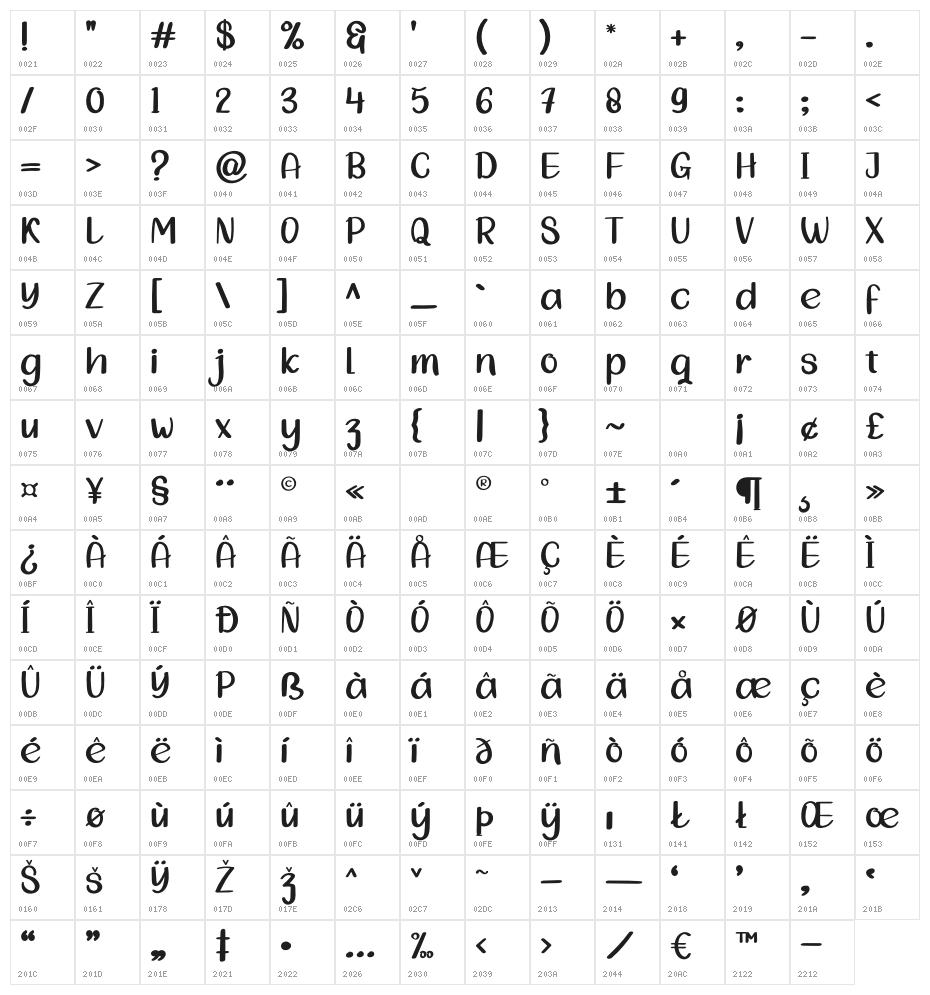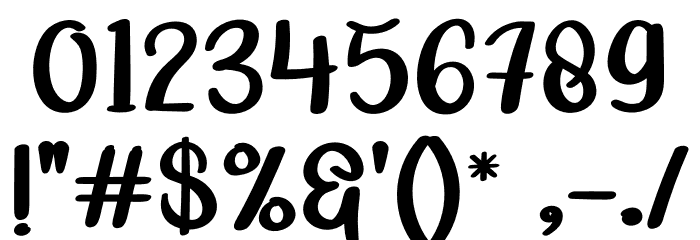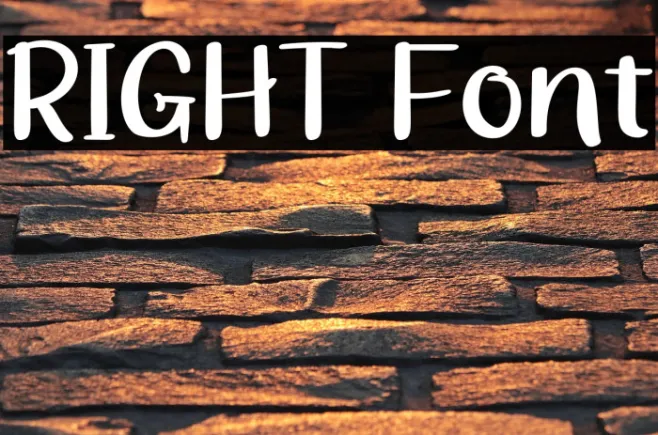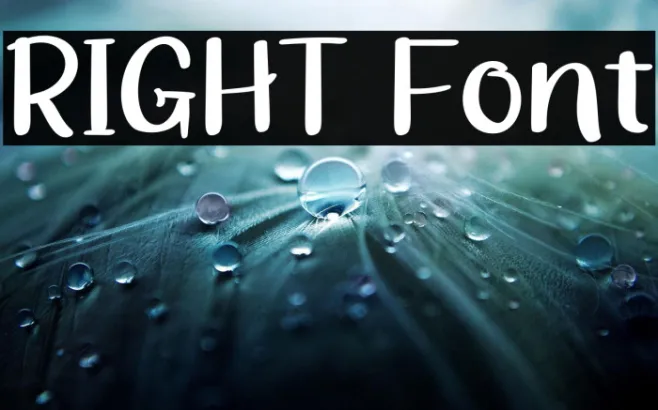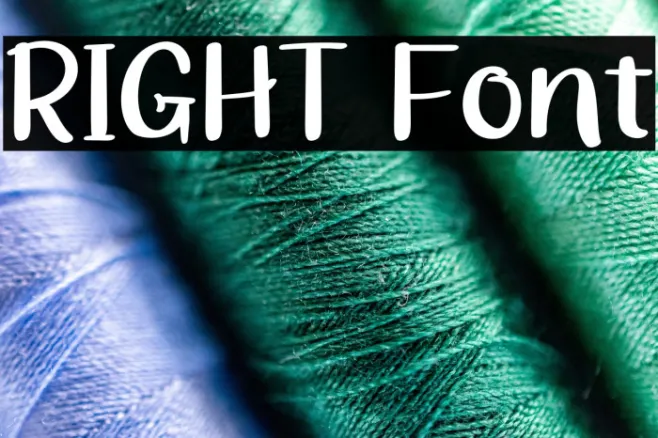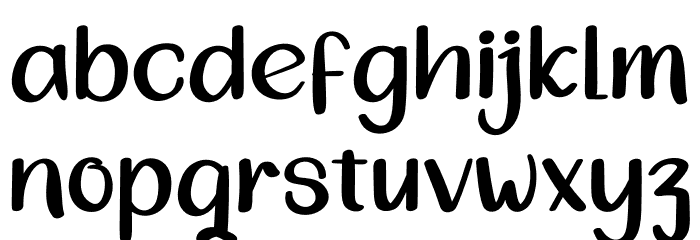
RIGHT Font
RIGHT Description
This font features a playful and bold style with rounded edges and a hand-drawn feel. The uppercase letters are slightly wider than the lowercase, adding a sense of balance and harmony. The numerals and special characters maintain the same whimsical aesthetic, making them suitable for creative projects. The strokes are consistent in thickness, providing a uniform appearance across all characters. The font's overall design is approachable and friendly, ideal for projects that require a touch of personality and warmth.